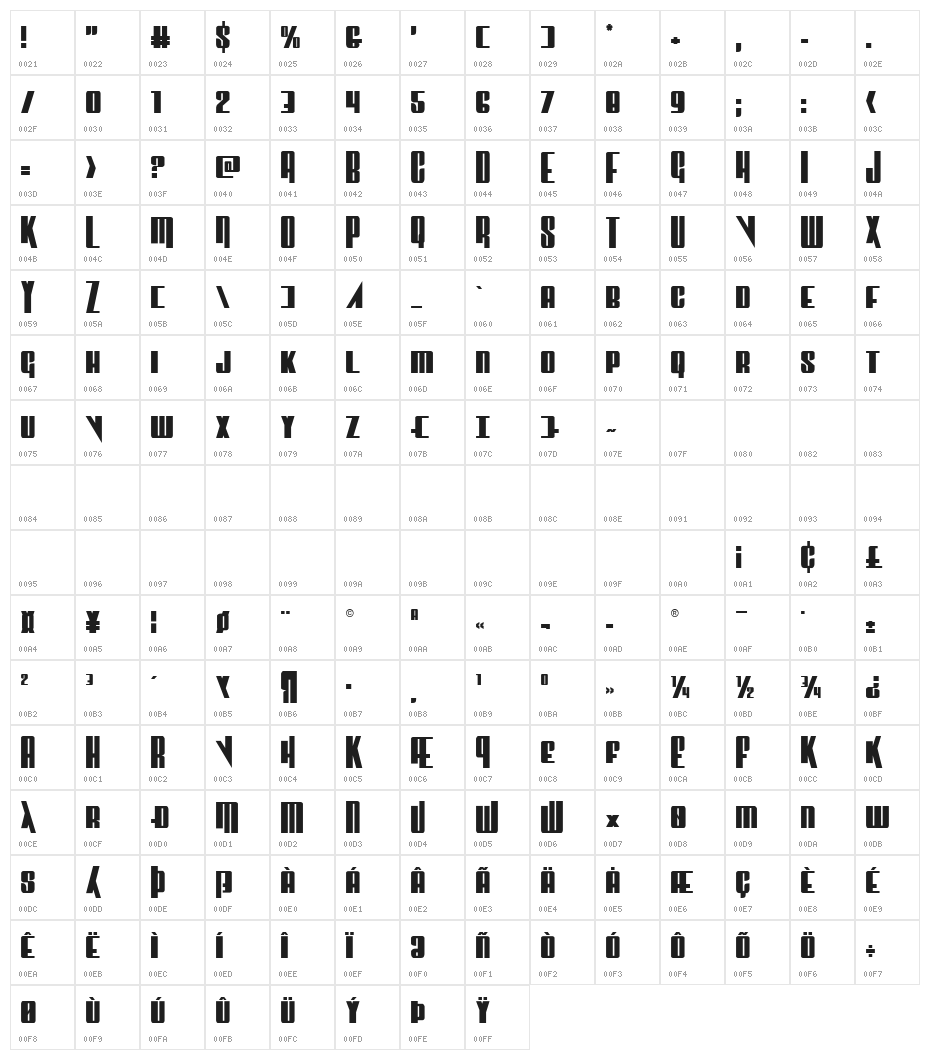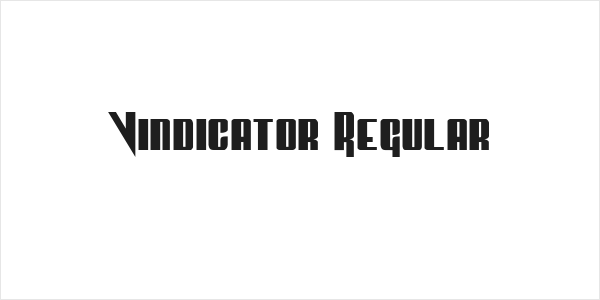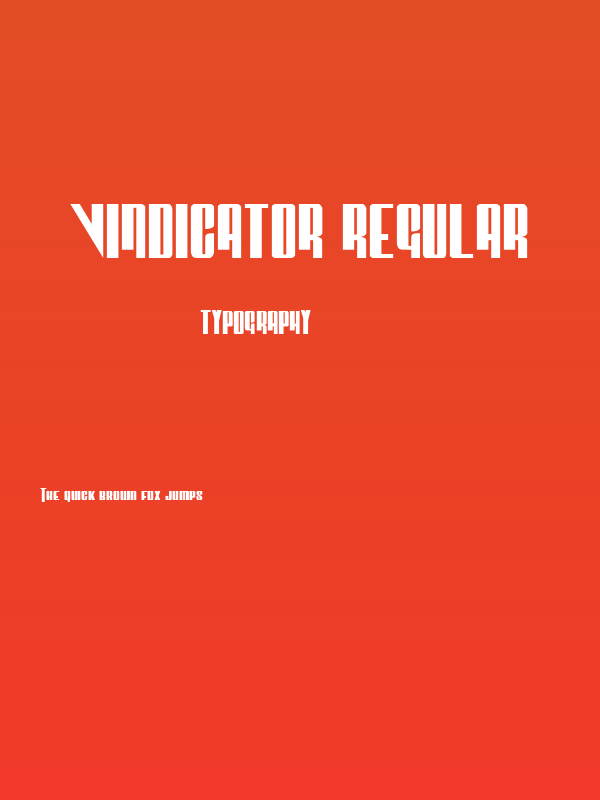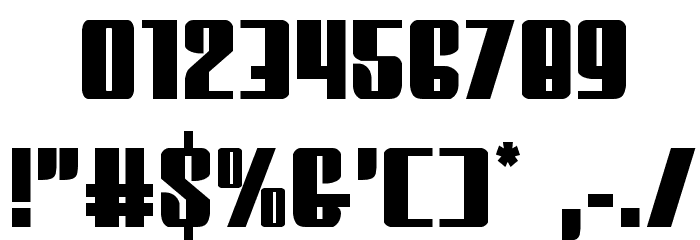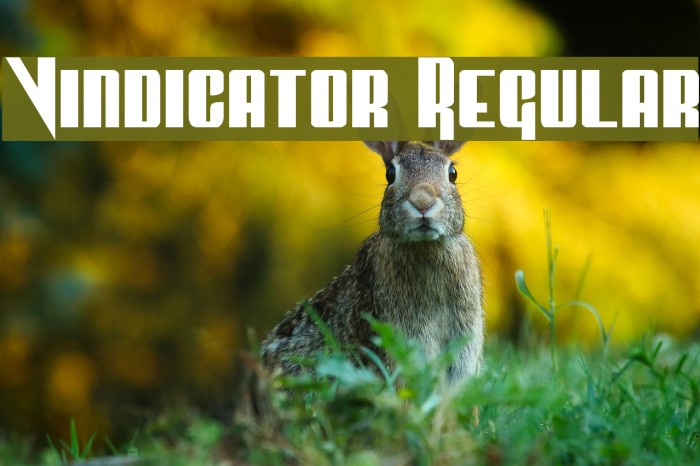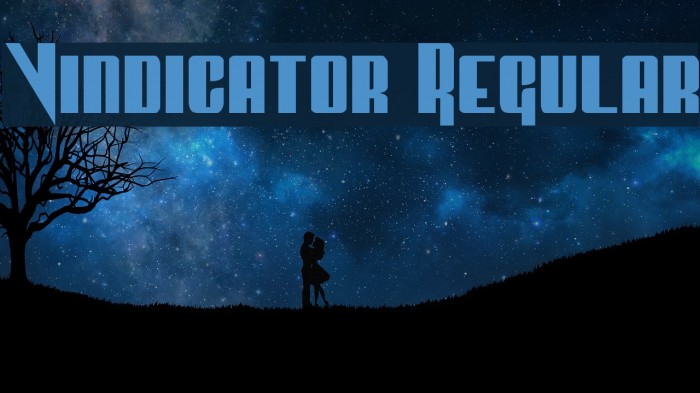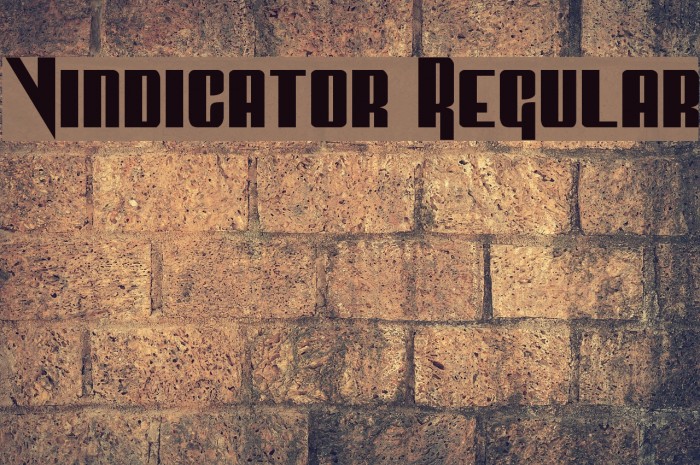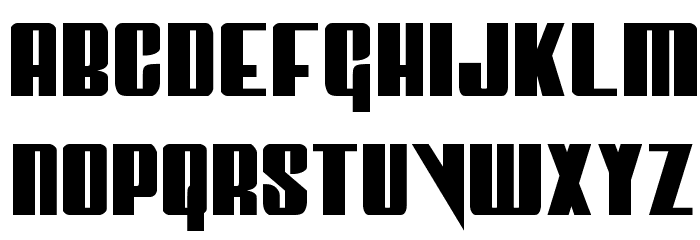
Vindicator Regular Font
Vindicator Regular Description
This font features a bold and impactful design with strong geometric shapes and sharp angles. The uppercase and lowercase letters maintain a consistent height, creating a uniform appearance. The characters are tightly spaced, emphasizing a compact and powerful look. The numbers and special characters follow the same bold style, ensuring consistency across all text elements. This font's design is reminiscent of industrial or futuristic themes, making it suitable for projects that require a strong visual presence.